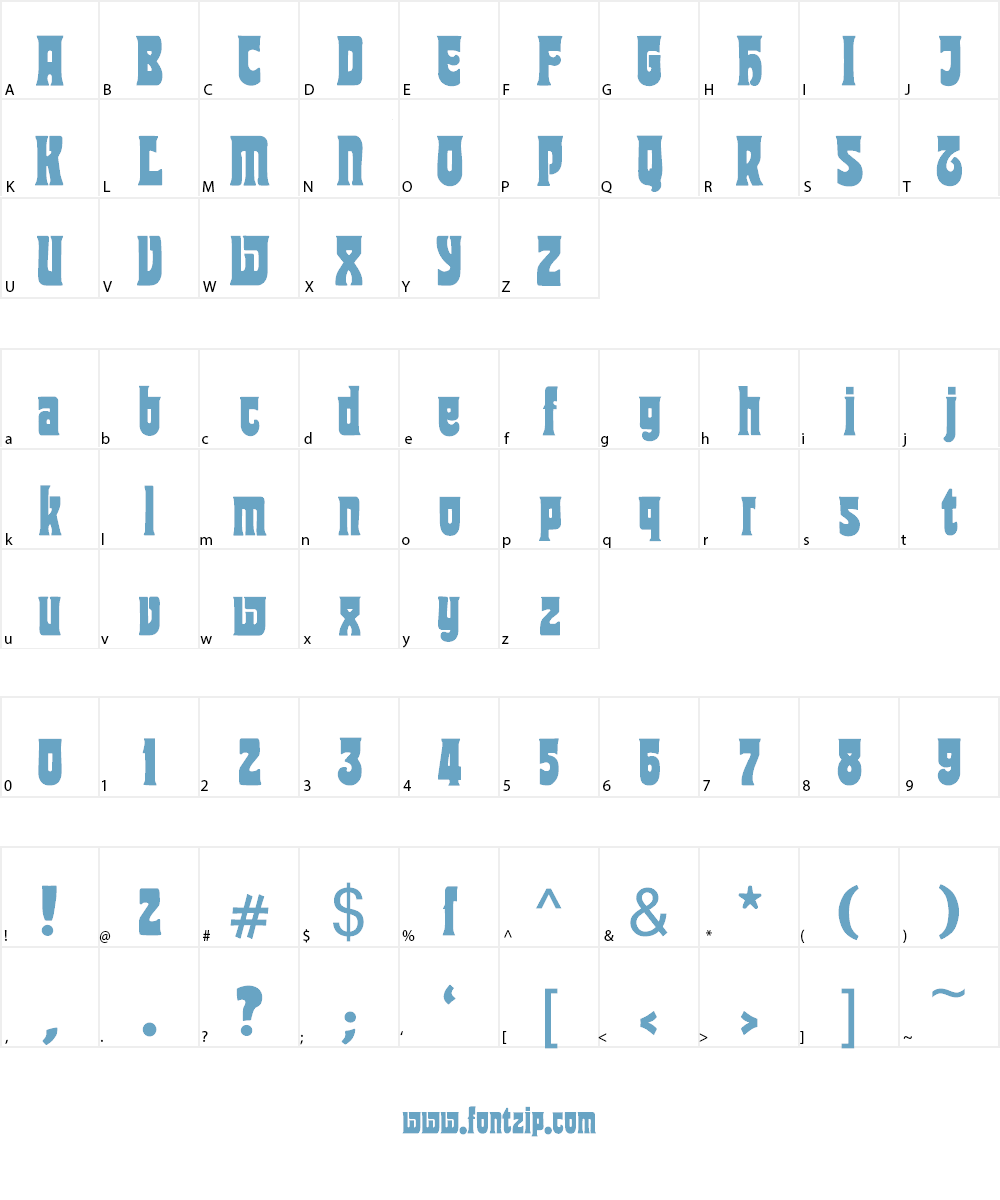
Blackletter meets Fin de Siècle: Tip Top was released in ~1900 by Julius Klinkhardt, Leipzig. Our digitized version is based on a scan from the Book “Lettera 3”, Arthur Niggli Ltd., Switzerland 1968, where the font is called erroneously Teutonia by Roos & Junge. Thanks to Bernhard Schnelle (Hochschule für Bildende Künste, Braunschweig) who digged out a reprint of the “Schriften-Atlas” (Petzendorfer, Hannover 1999), we are happy to correct this error now. Our Teutonia has been renamed to TipTop accordingly.